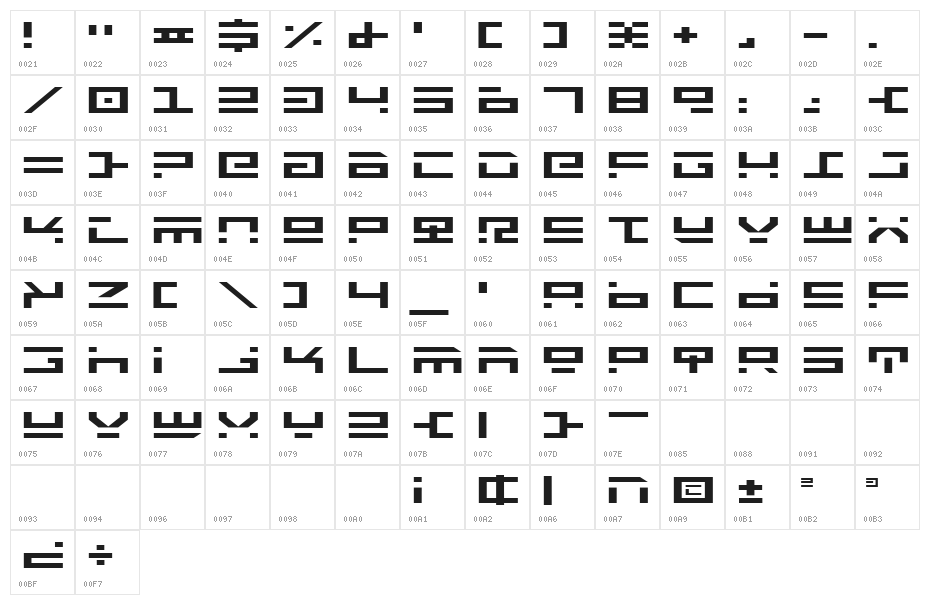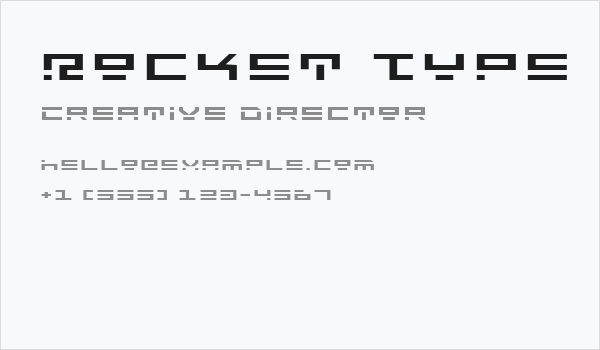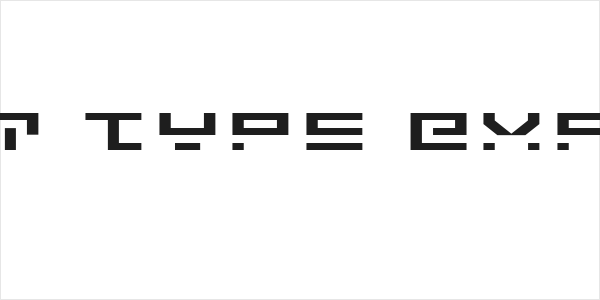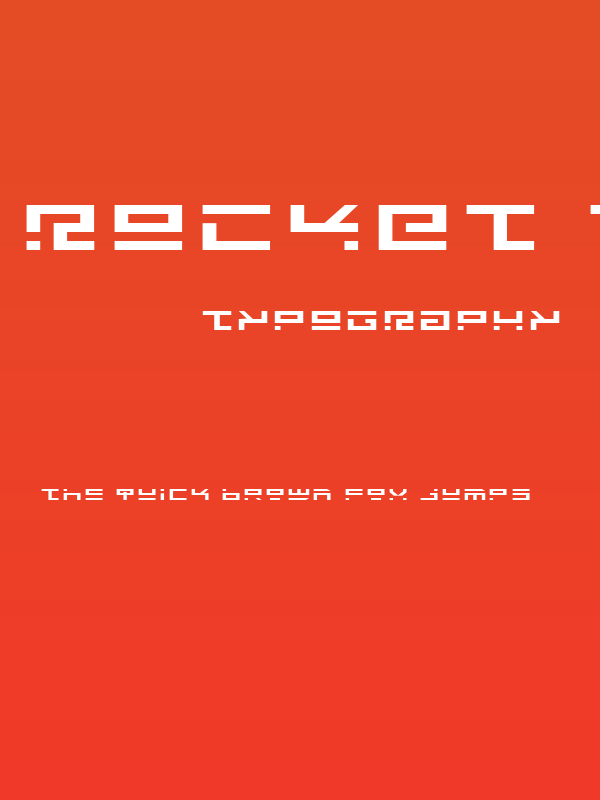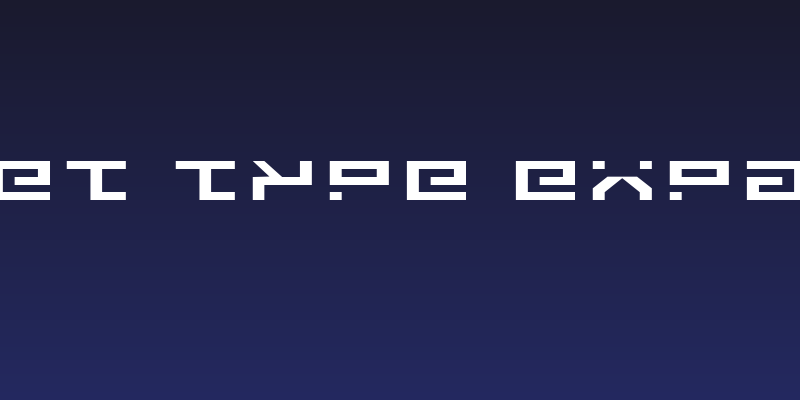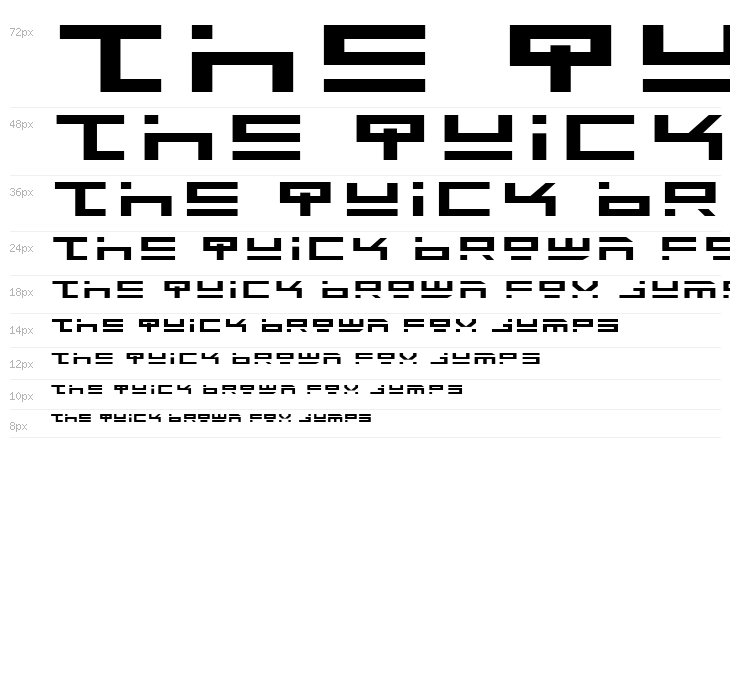
Rocket Type Expanded Font
Rocket Type Expanded Description
This font features a futuristic and geometric design, characterized by its bold, block-like structure. Each character is composed of distinct, angular shapes that create a sense of modernity and technological advancement. The uppercase and lowercase letters maintain a consistent style, with sharp edges and a uniform thickness that enhances readability. Numbers and special characters follow the same design principles, ensuring a cohesive look across all elements. The font's unique style makes it stand out, ideal for projects that require a modern and innovative appearance.
| Proposed Projects | Ideal for technology branding, sci-fi themed designs, video game interfaces, and modern advertising campaigns. |